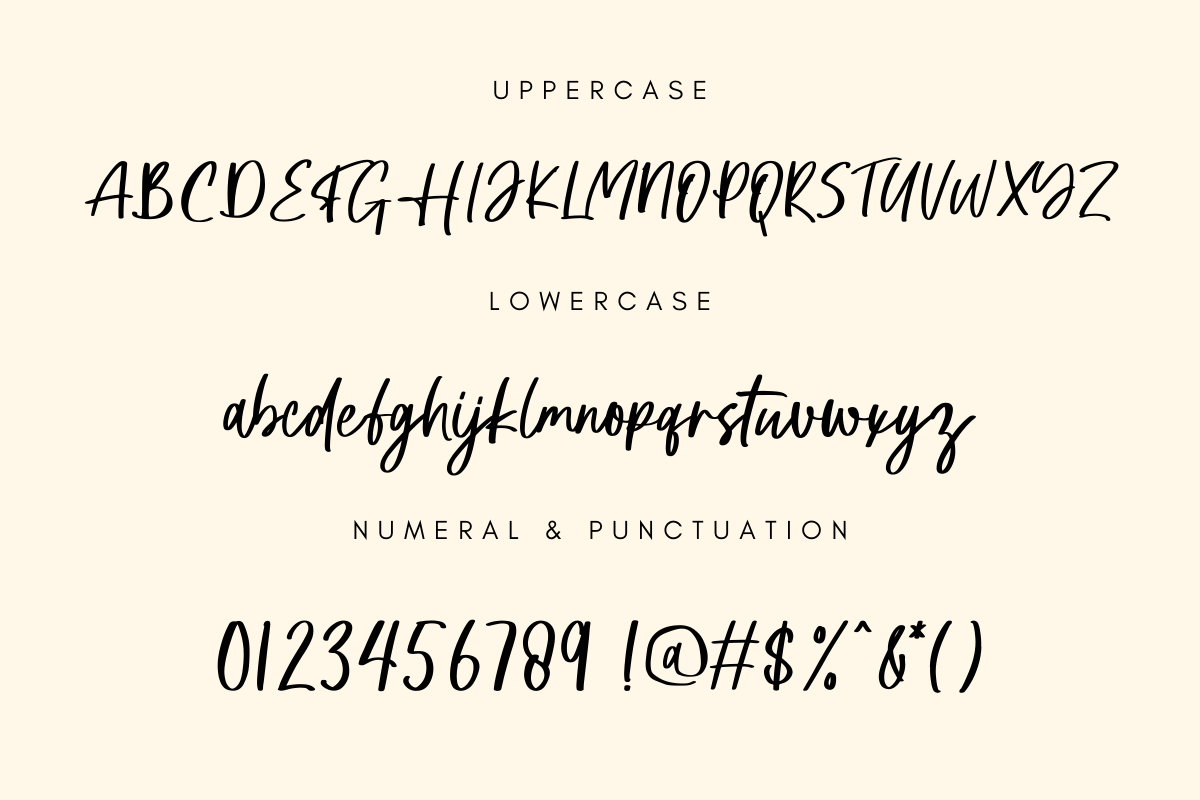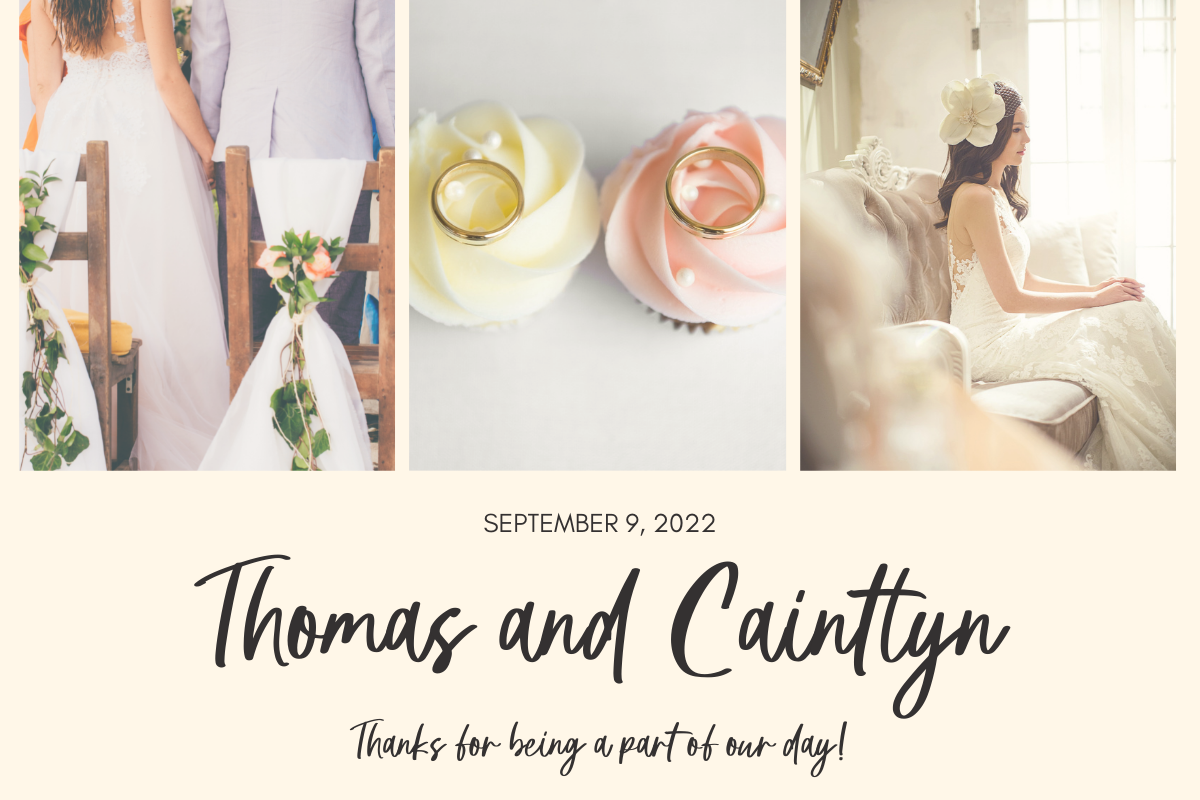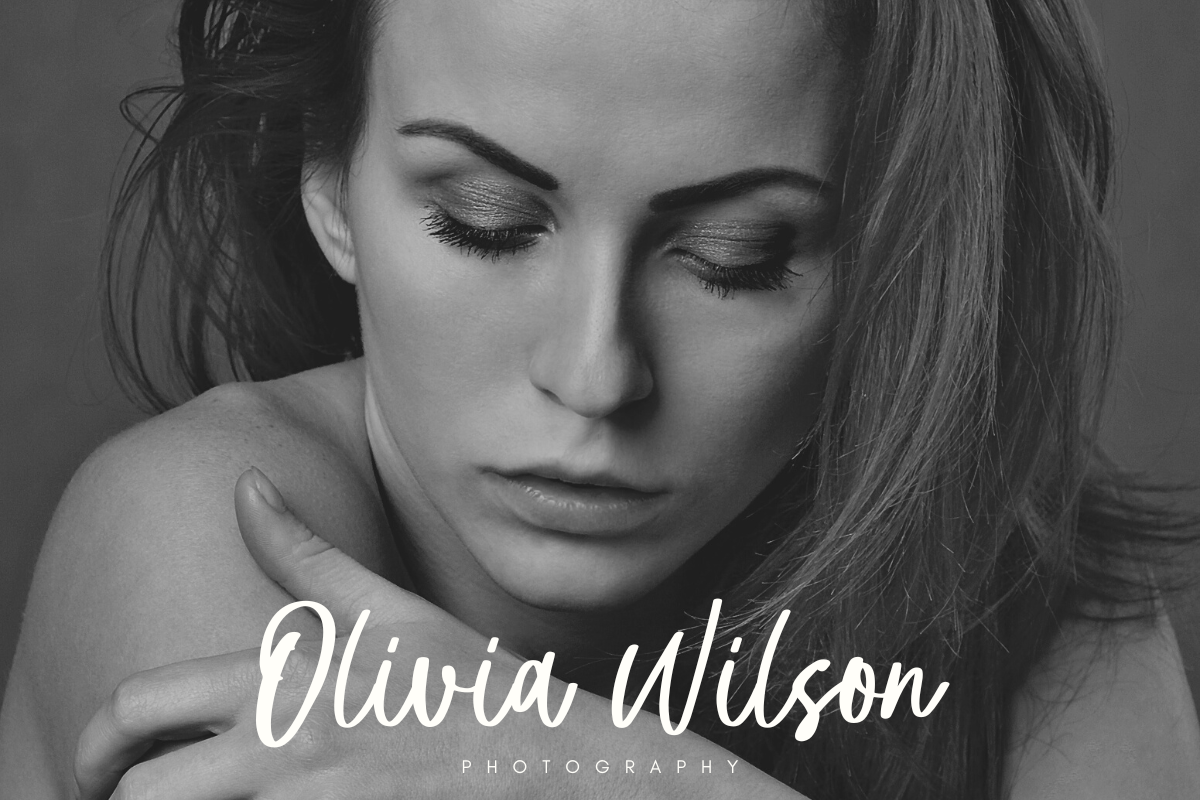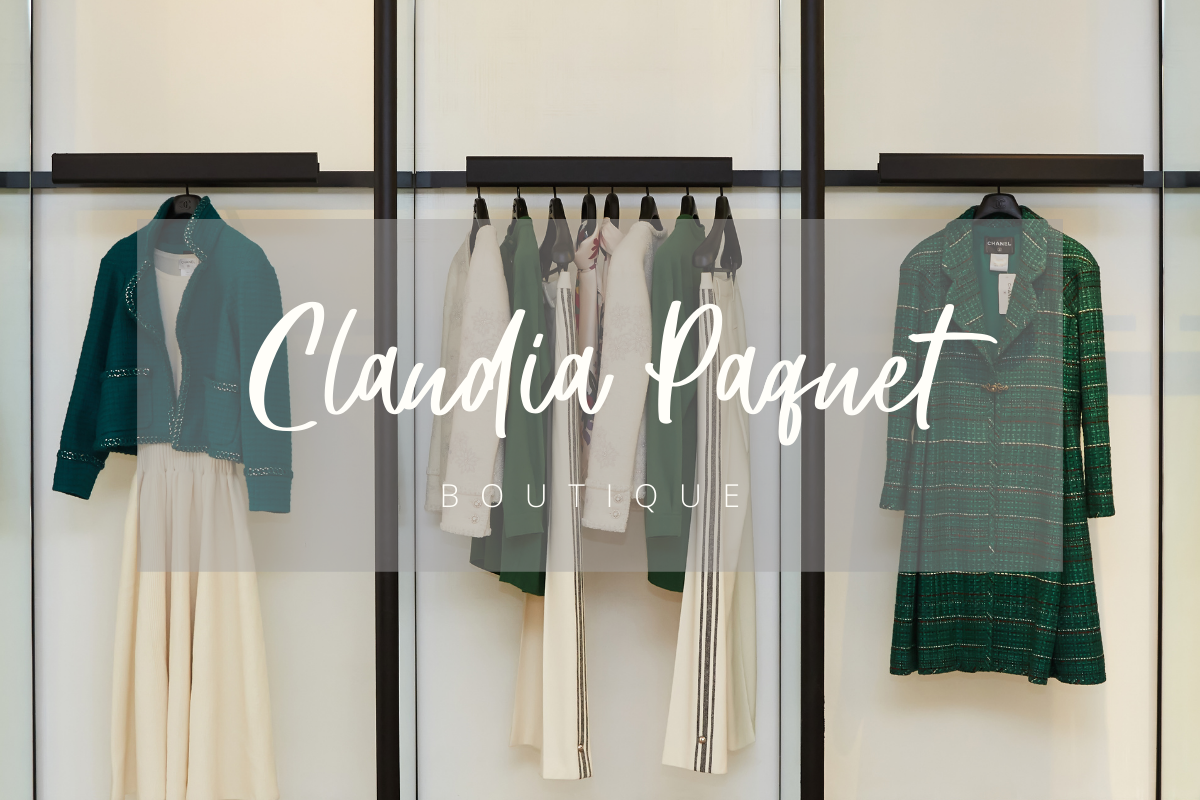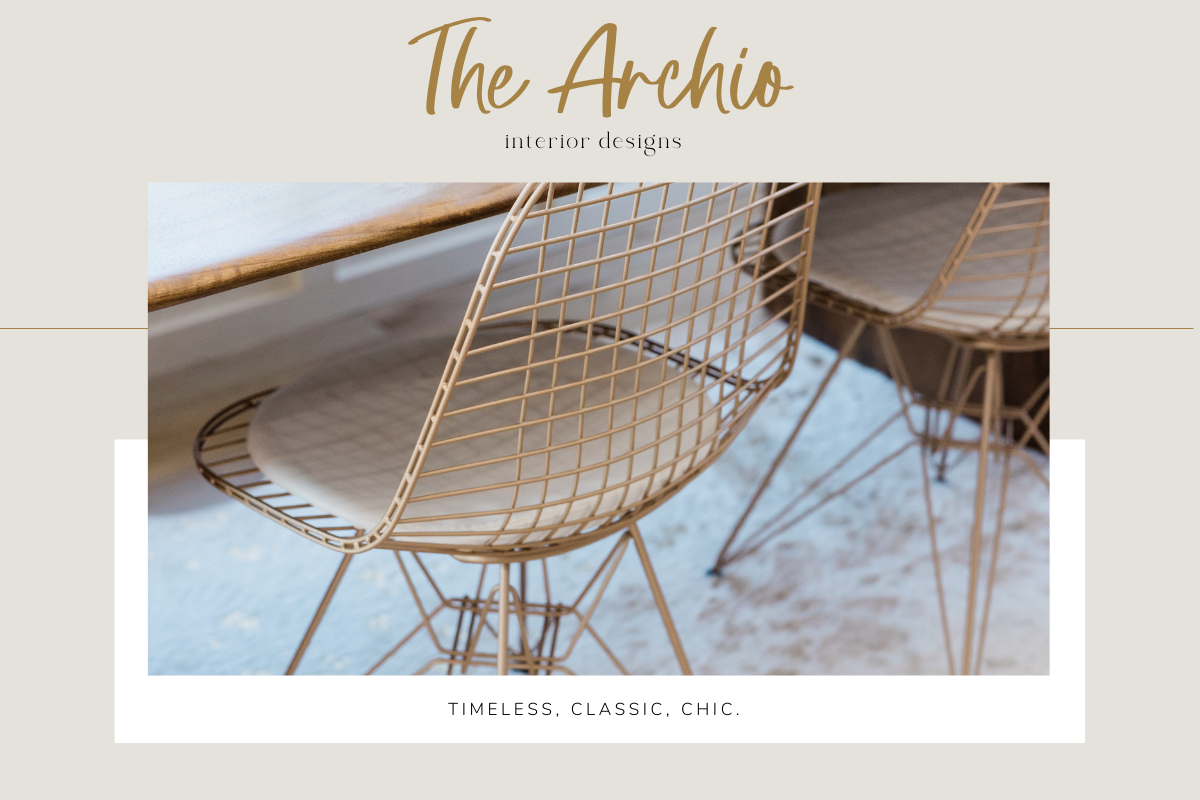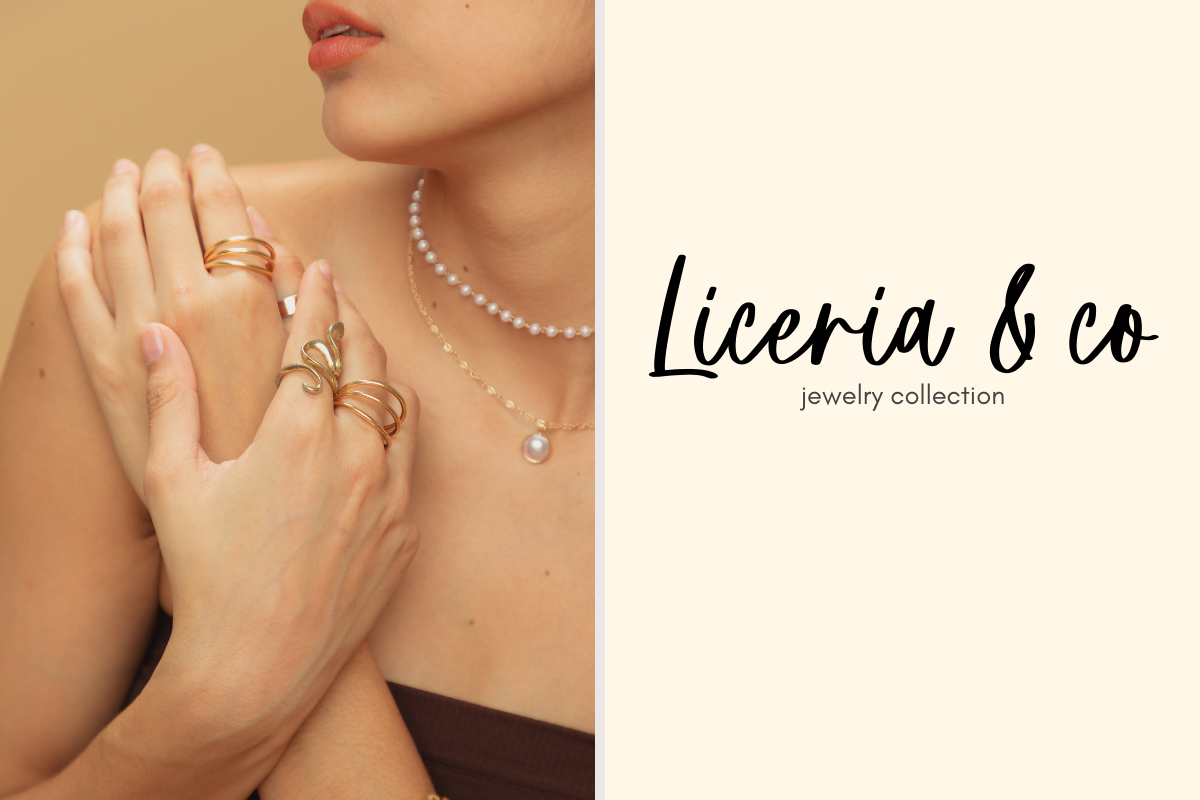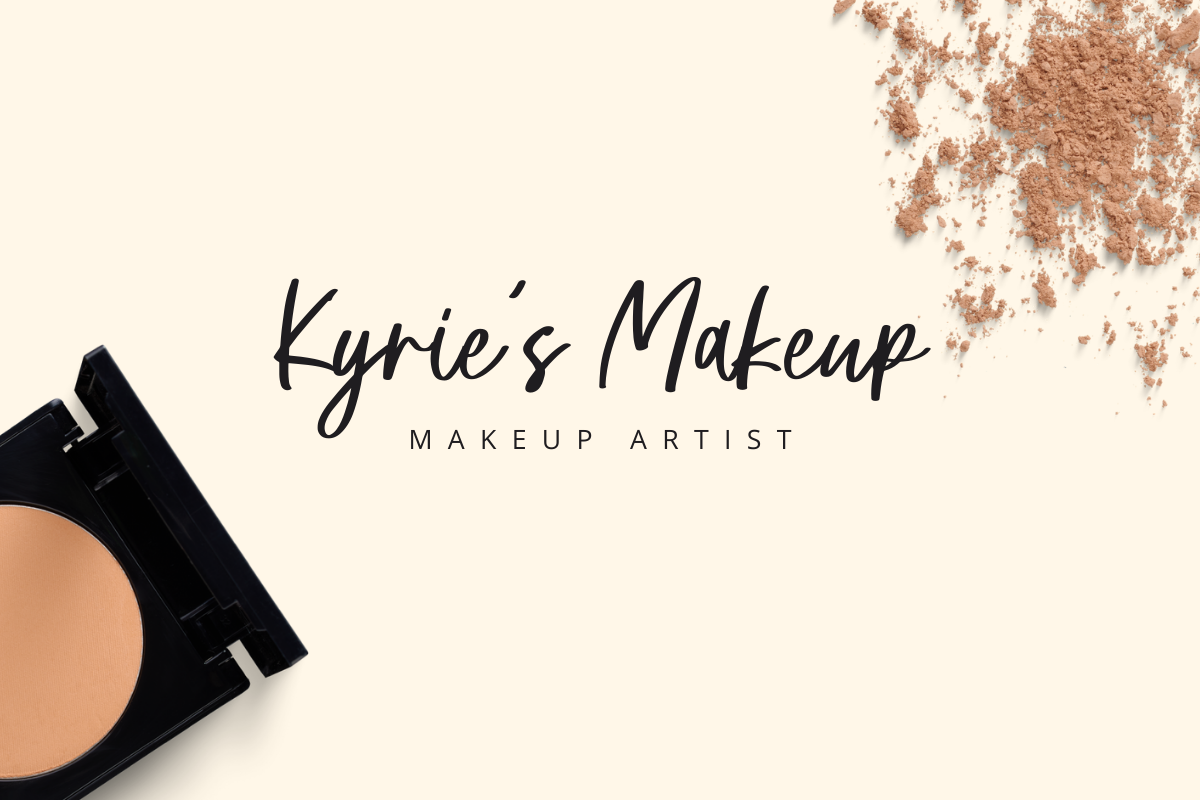
Romantic
This is my new font, it's called Romantic. This font is handwritten font. it's very suitable to be applied in your design, also it's perfect for logo, branding, title, social media post, advertisements, product packaging, product designs, label, photography, special event, web design, etc.
Romantic (Uppercase & Lowercase)
Numeral & Punctuation